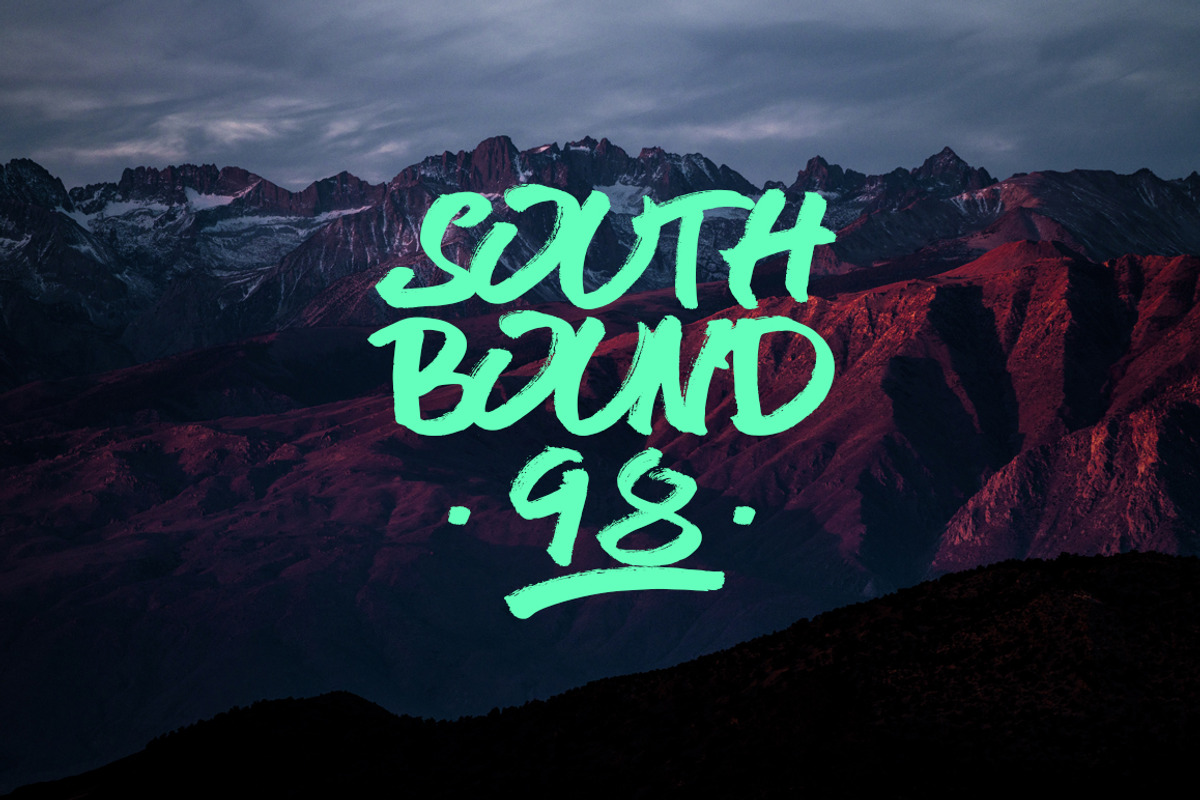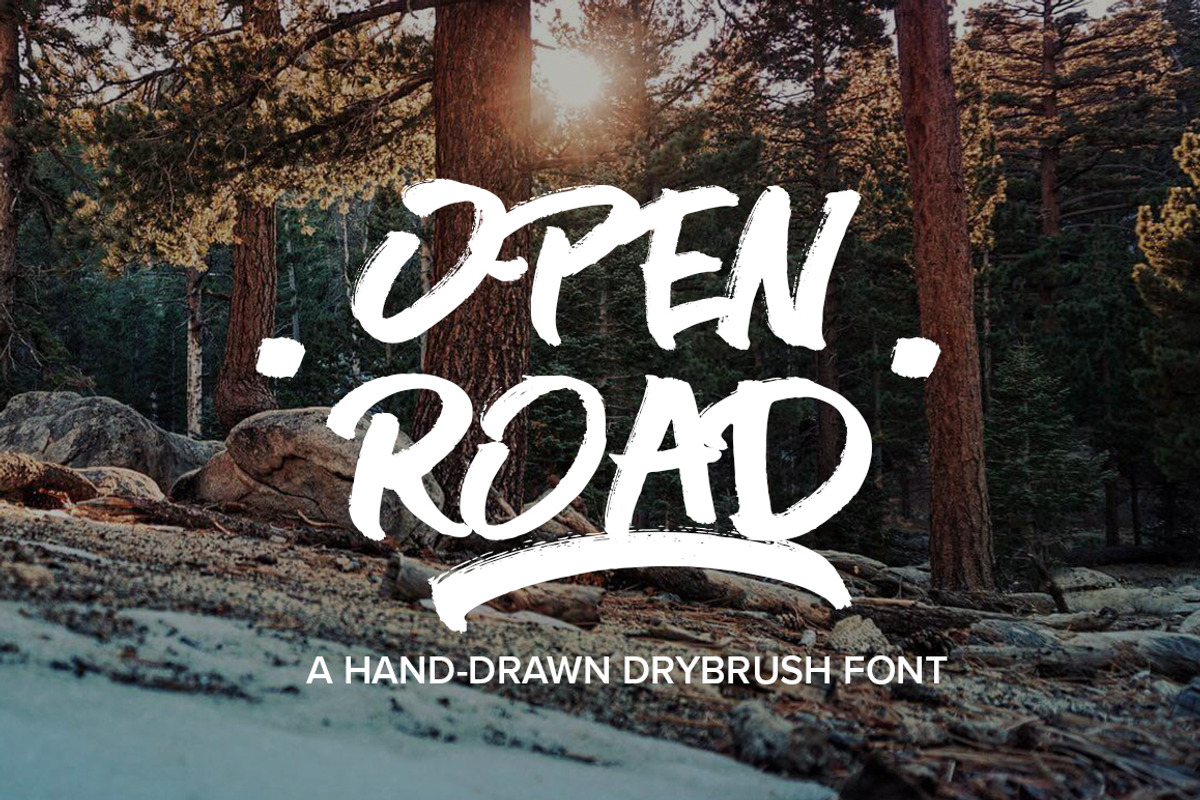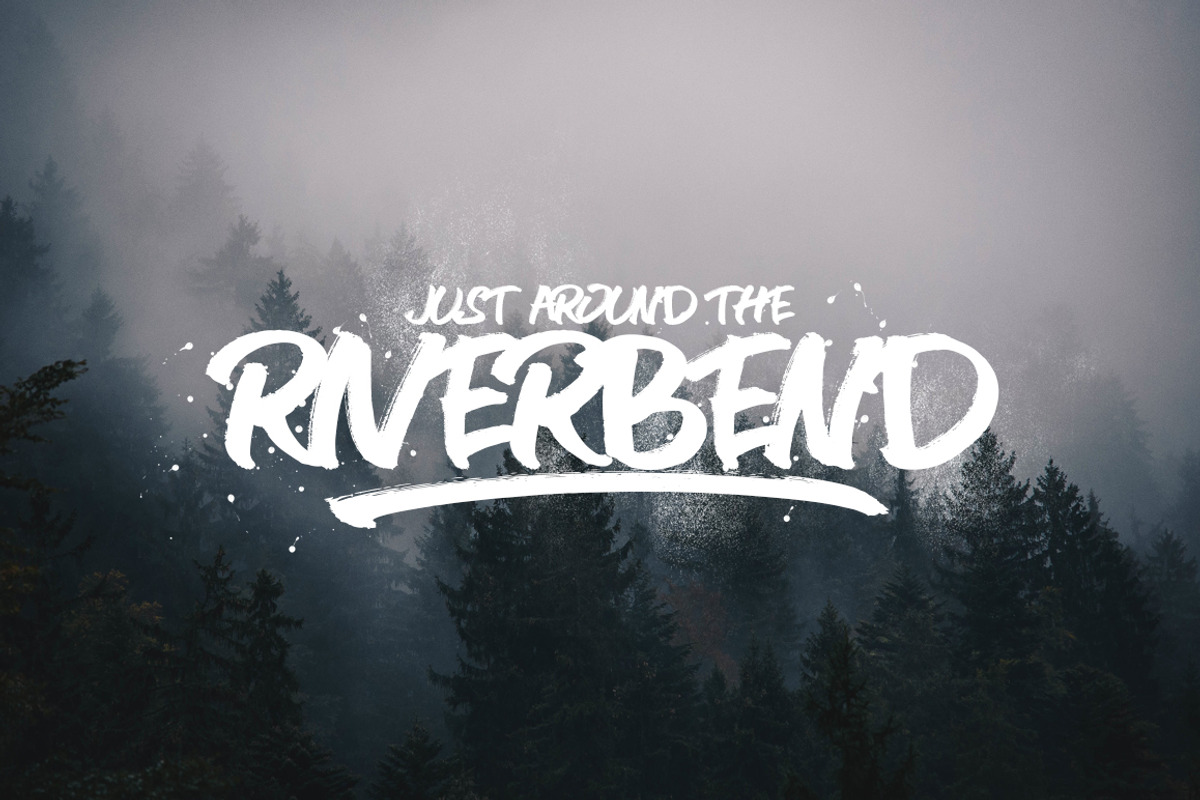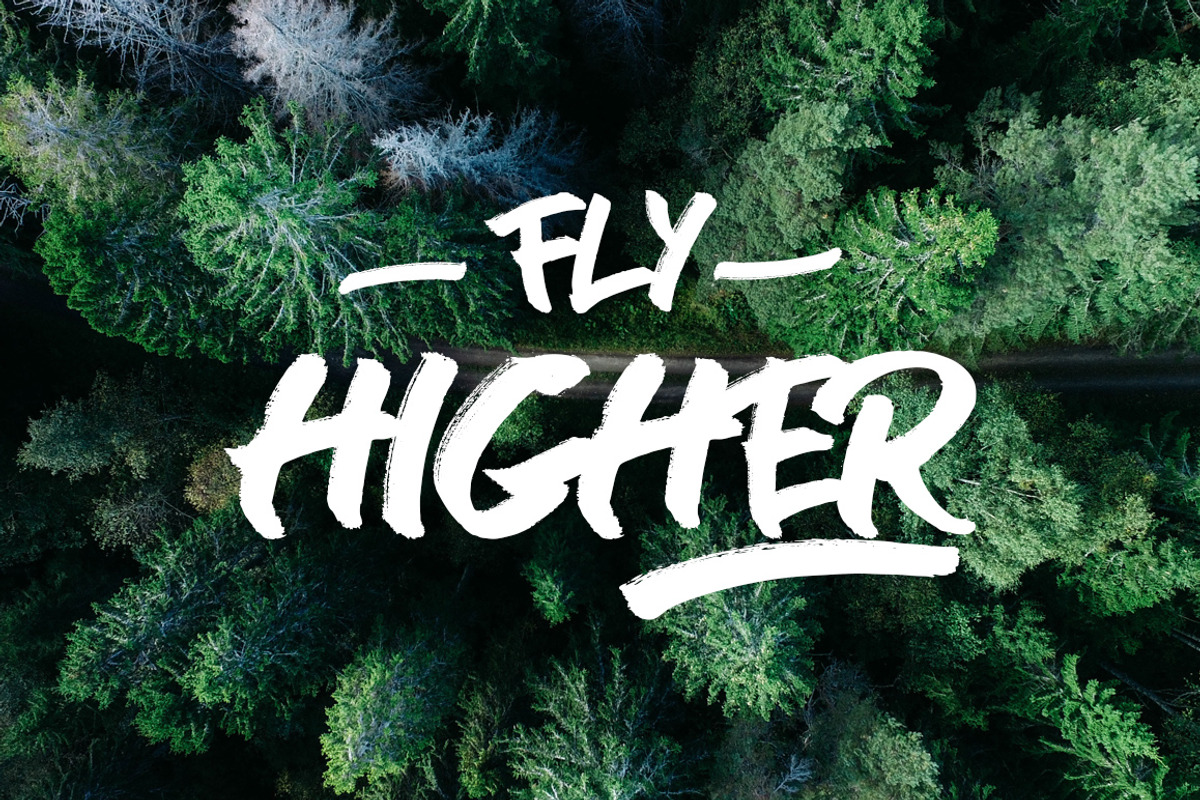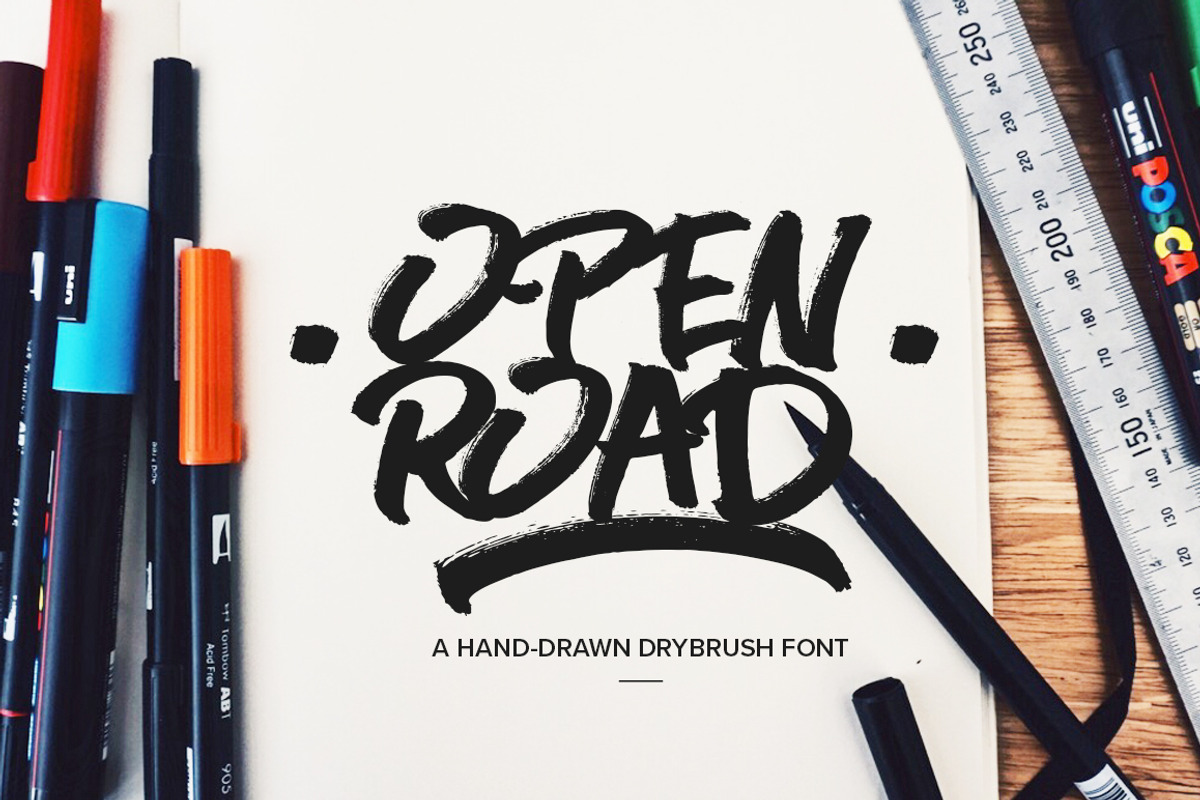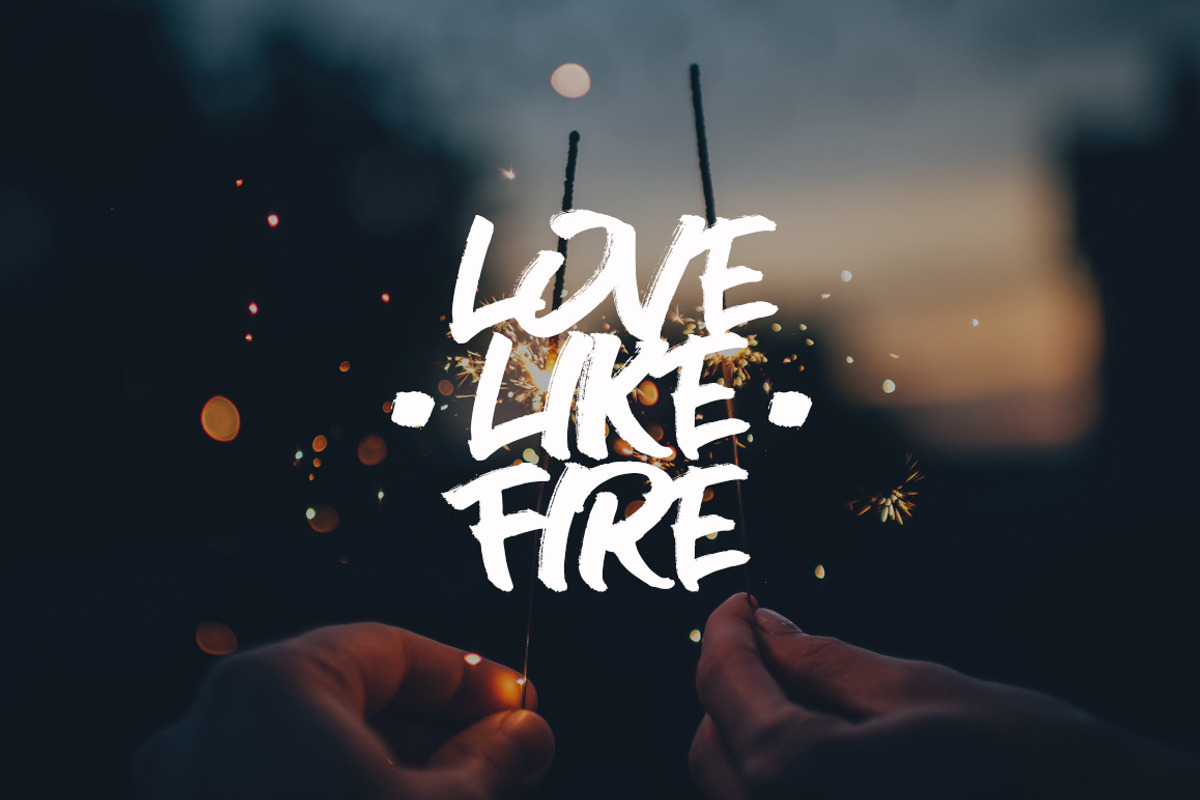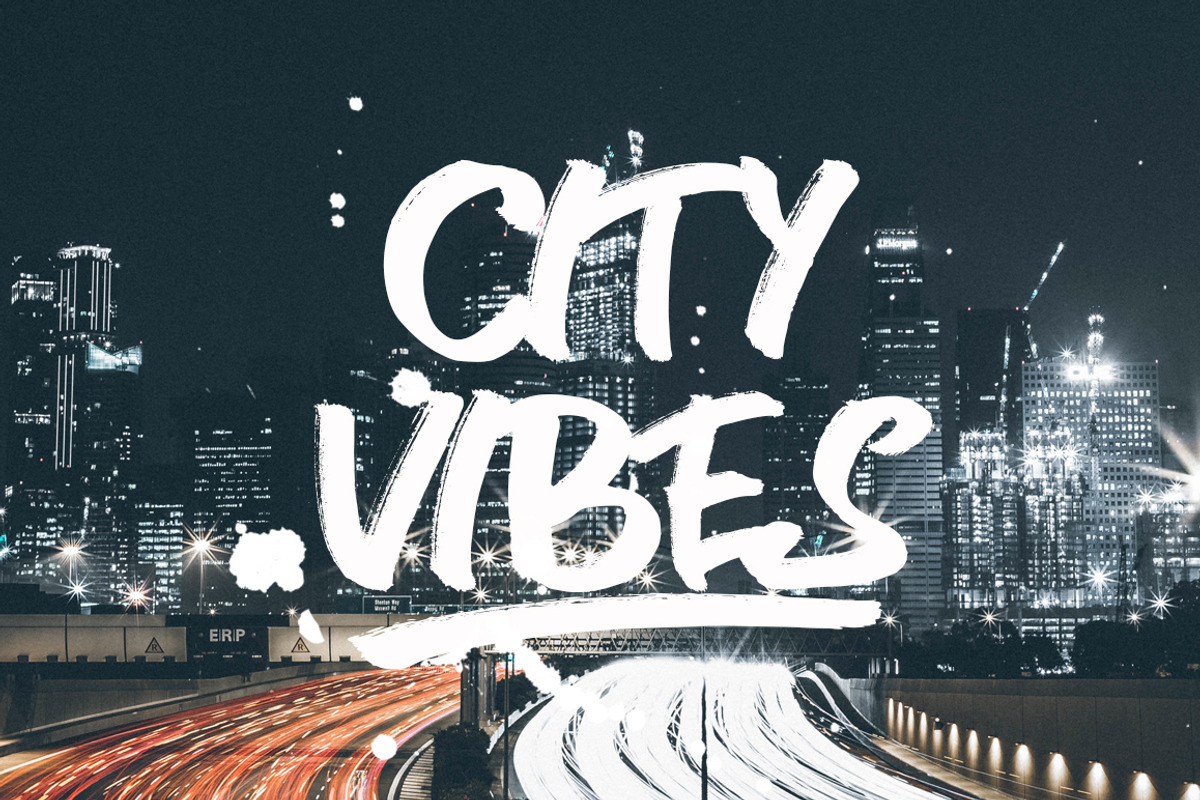
OPEN ROAD Brush Font
OPEN ROAD Brush Font by James Daly is a font selected for branding, posters, packaging, typography.
- Special attention has been paid to creating an organic feel, with solid, comfortable characters drawn with quick strokes to emphasise the ha
- Open Road has been designed for short, bold headlines and phrases, so comes in uppercase only with minimal punctuation.
- If there's enough interest I may extend this to include further characters and variations.
OPEN ROAD Brush Font by James Daly fits naturally into Branding, posters, packaging, typography.